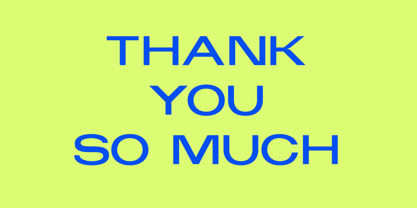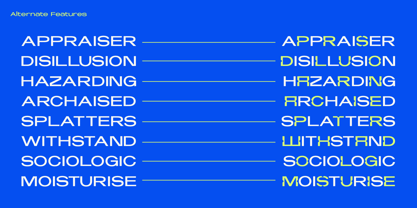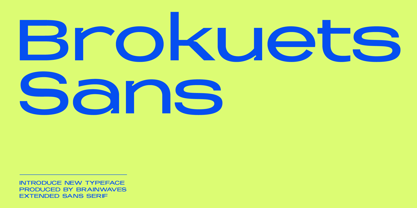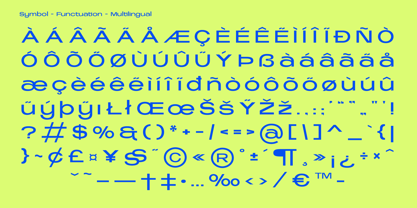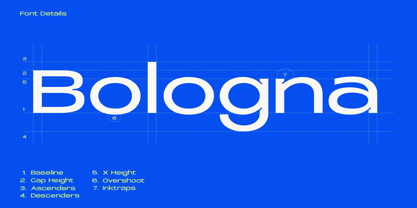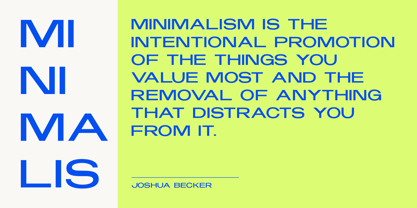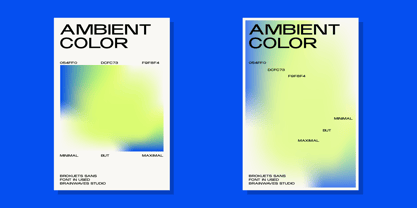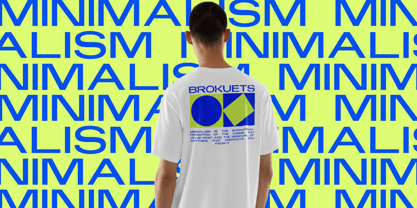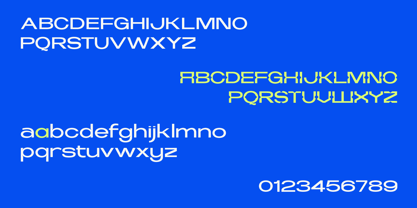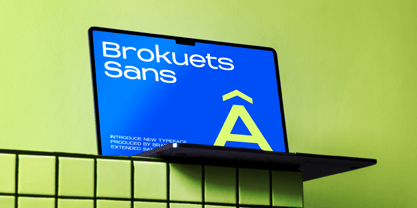
Brokuets Sans
by Brainwaves Studio
The Brokuets Sans Font Family was designed by Lucky Fitriadi and published by Brainwaves Studio. Brokuets Sans contains 2 styles and family package options.
Brokuets Sans is a sleek, extended sans-serif typeface designed for maximum impact. With its wide letterforms and a touch of futuristic styling, this font brings a modern and dynamic energy to any project. The carefully crafted geometric shapes ensure a clean, contemporary look, while the unique alternate characters add a creative twist, making it versatile for both professional and experimental designs.
What Makes Brokuets Sans Stand Out?
• Extended Sans-Serif Style - Wide proportions that exude strength and modernity.
• Unconventional Alternates - Creative character variations that bring an experimental edge.
• Versatile & Adaptable - Ideal for branding, editorial layouts, tech-inspired projects, and bold visual statements.
• Multilingual Support - Designed for seamless global communication.
• High Readability - Clean yet distinctive shapes ensure clarity in any design.
Whether you're working on a tech-inspired project, branding, editorial layout, or bold typography-driven design, Brokuets Sans delivers the perfect balance of form and function with its extended style.
Designers: Lucky Fitriadi
Publisher: Brainwaves Studio
Foundry: Brainwaves Studio
Design Owner: Brainwaves Studio